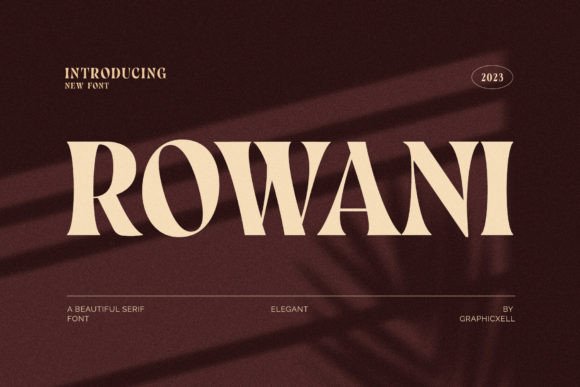
**Rowani Font: The Epitome of Elegance and Sophistication**
In a world where first impressions matter, your brand's visual identity holds immense power. Allow us to introduce Rowani Font, the ultimate serif typeface that exudes elegance and sophistication, leaving an indelible mark on your audience.
**A Timeless Classic for Your Branding Needs**
Crafted by the skilled hands of Graphicxell, Rowani Font is a timeless masterpiece that effortlessly elevates your branding endeavors. Its carefully designed curves and intricate details evoke a sense of luxury and refinement, making it the perfect choice for creating logos, business cards, and other branding materials that demand attention.
**The Perfect Font for Your Wedding Designs**
As you embark on the joyous journey of matrimony, Rowani Font becomes your trusted companion, adding a touch of magic to every element of your wedding celebration. From save-the-dates and invitations to menus and signage, Rowani Font transforms your wedding stationery into works of art, capturing the essence of your love story with unparalleled grace.
**Elevate Your Social Media Presence**
In today's digital world, social media is your gateway to connecting with your audience and showcasing your brand's personality. Rowani Font empowers you to create captivating social media posts that stand out from the crowd. Its distinctive style adds a touch of elegance to your images, videos, and graphics, ensuring that your content resonates with your followers and leaves a lasting impression.
**A Versatile Font for Endless Creative Possibilities**
Rowani Font is not confined to a single purpose; it's a versatile font that adapts effortlessly to a myriad of creative projects. Whether you're designing product packaging, labels, or photography watermarks, Rowani Font adds a touch of class and sophistication, transforming ordinary designs into extraordinary works of art.
**Experience the Beauty of Rowani Font Today**